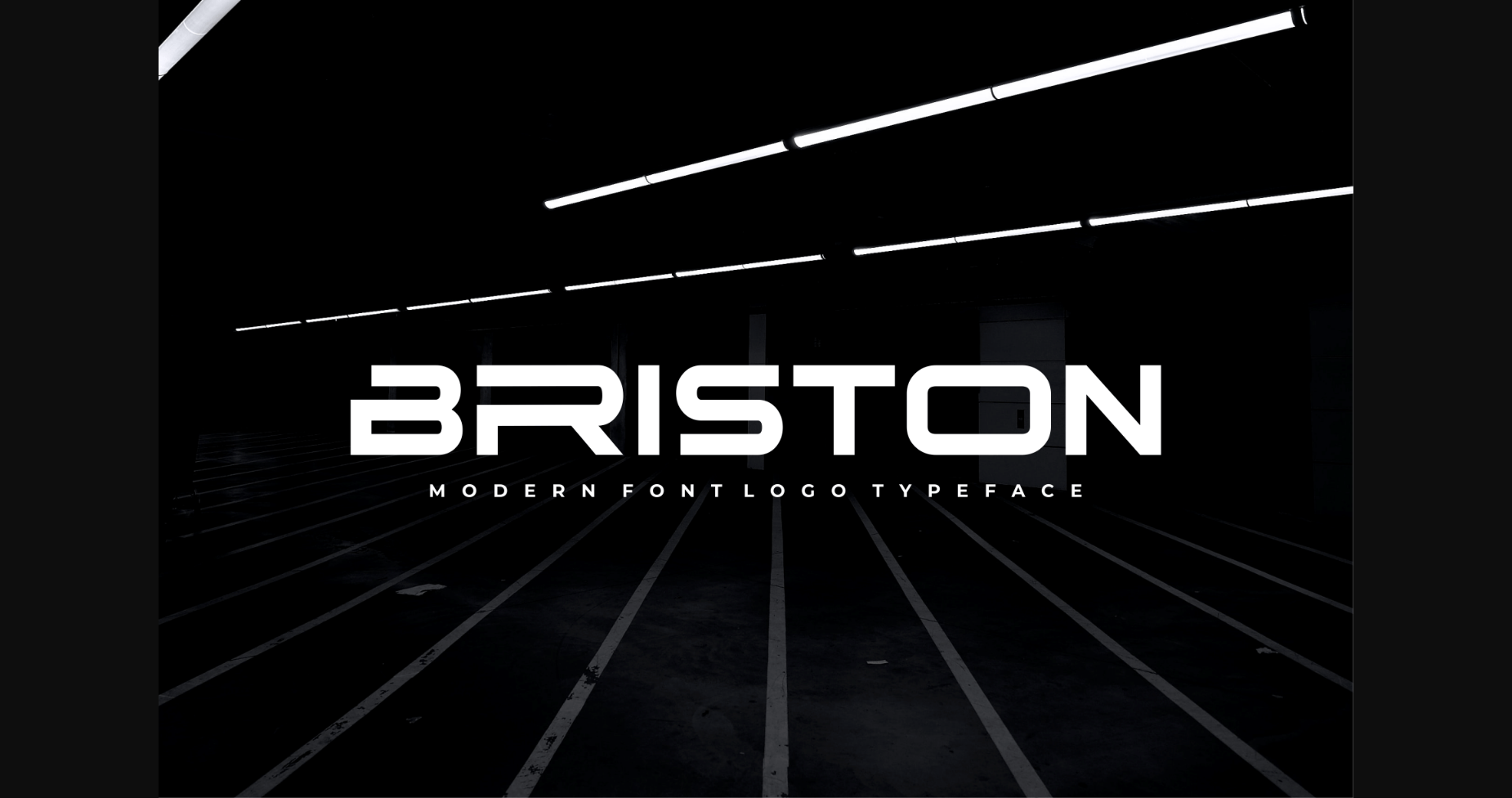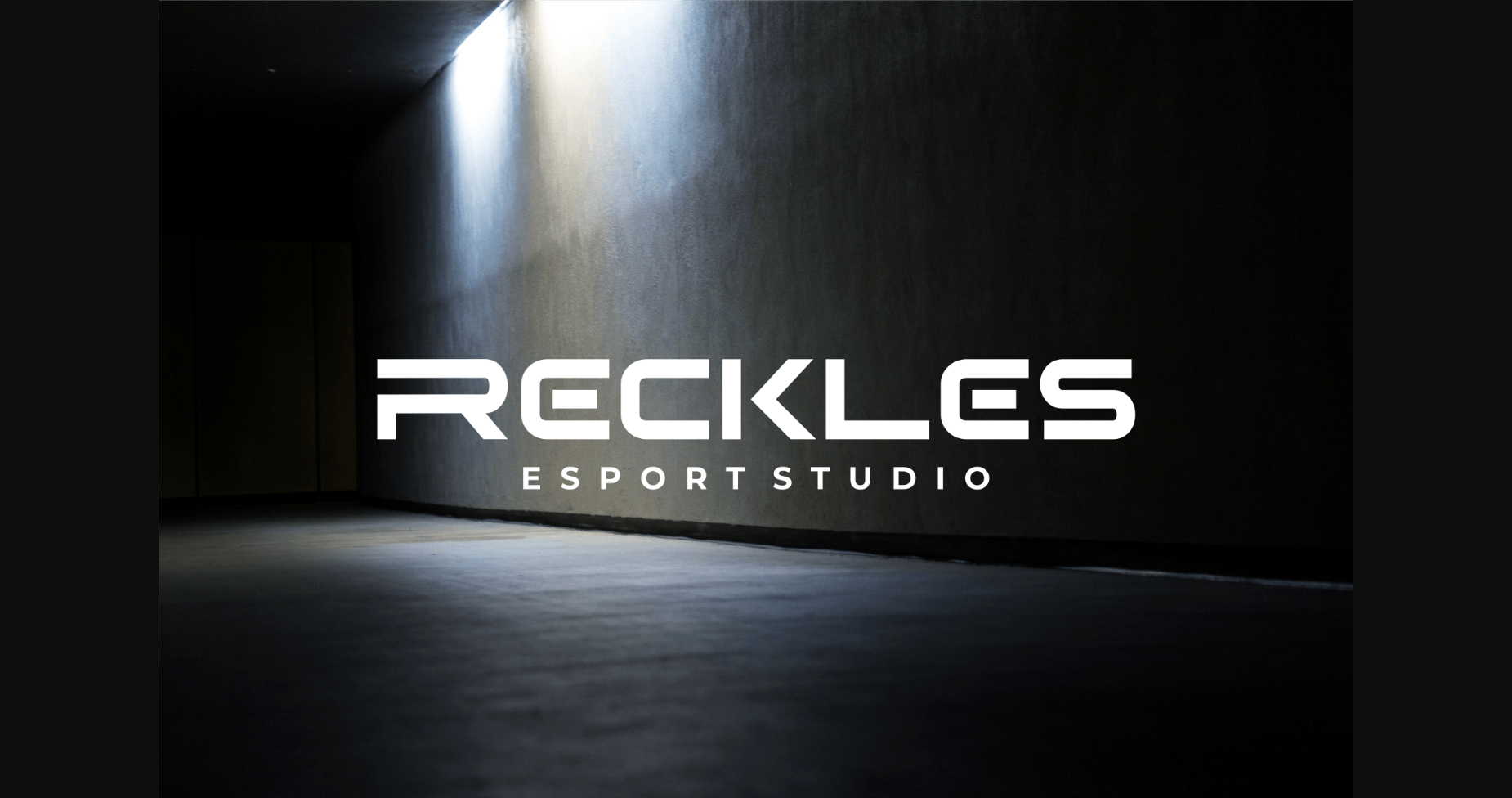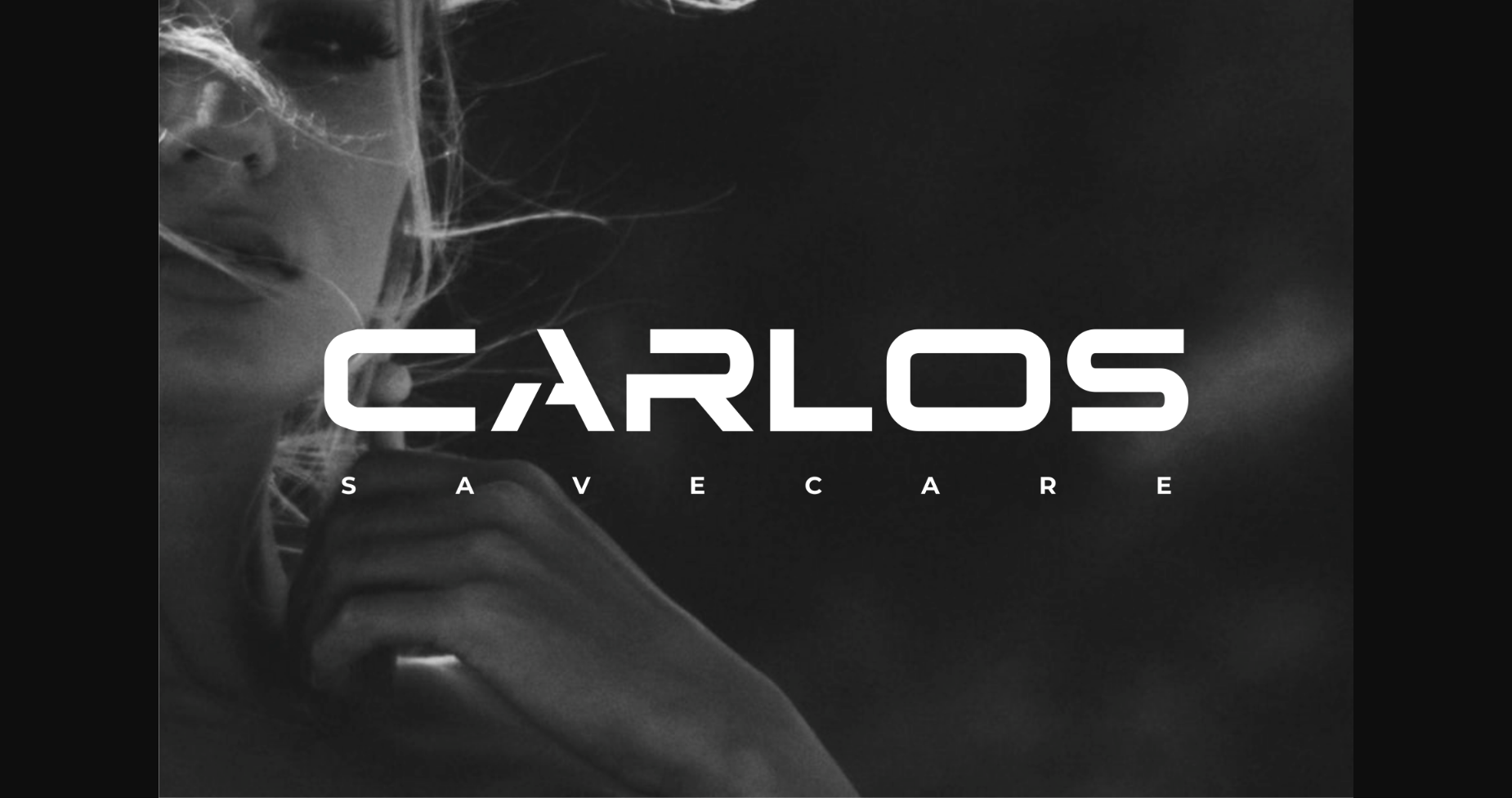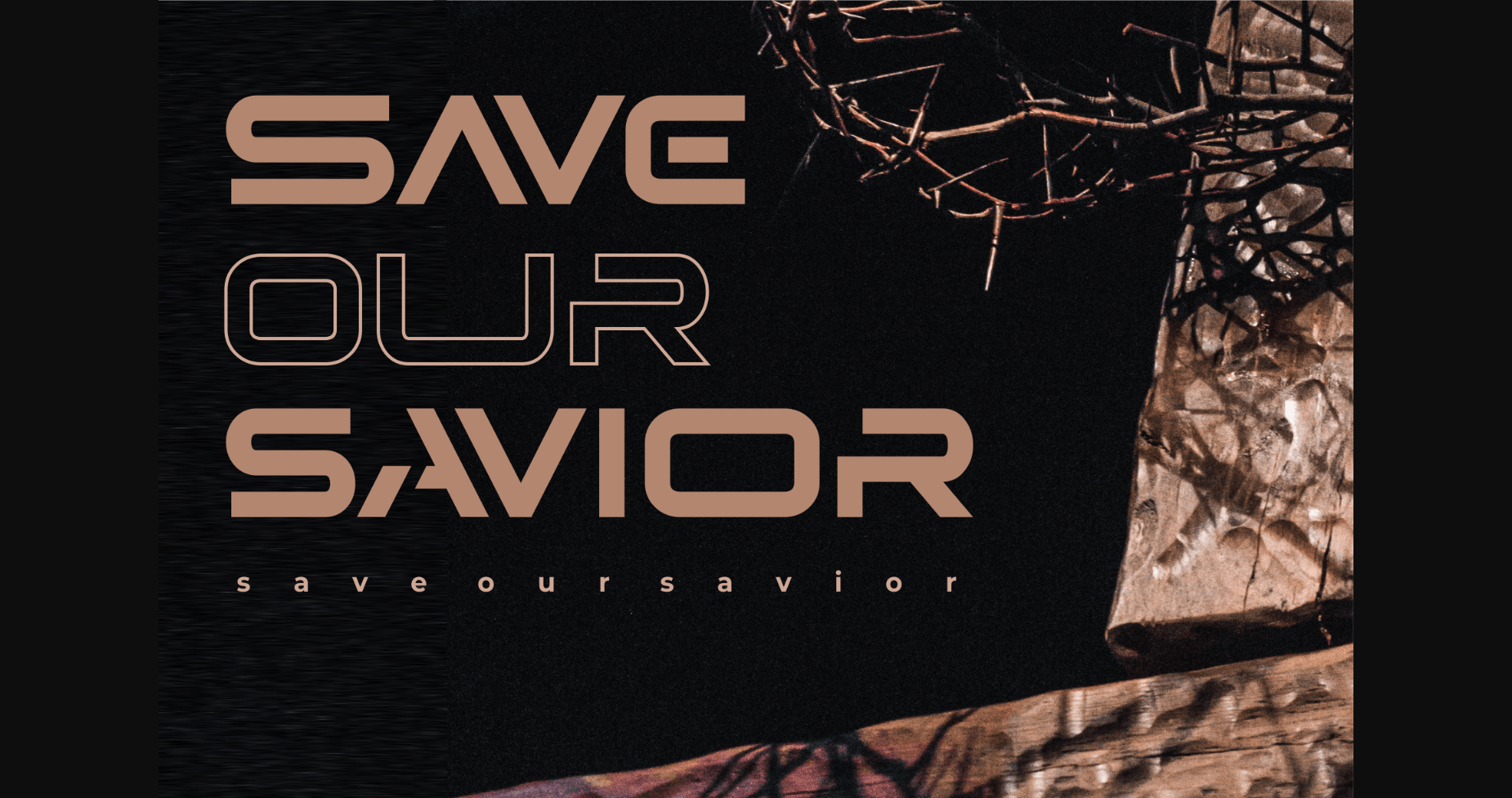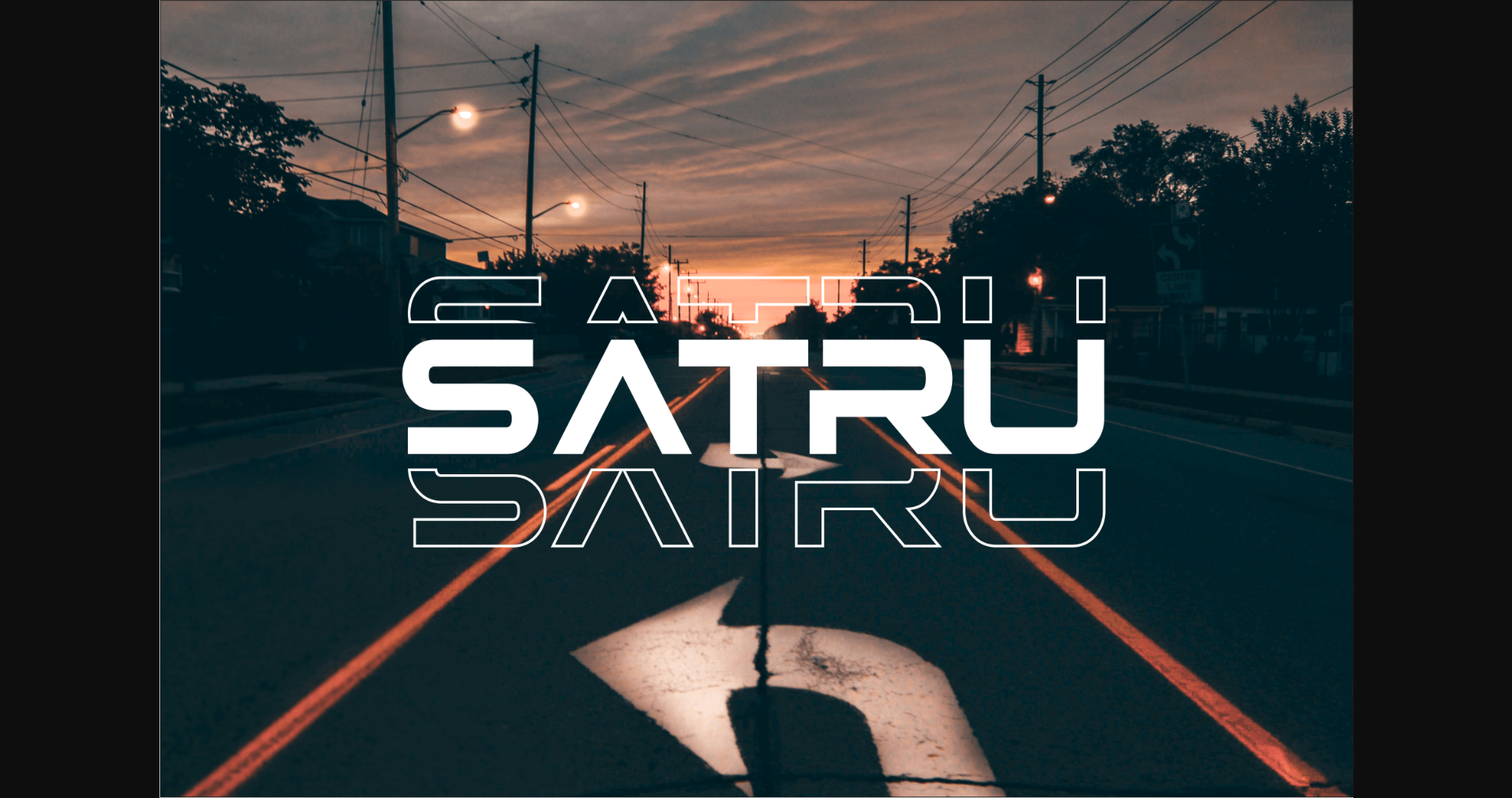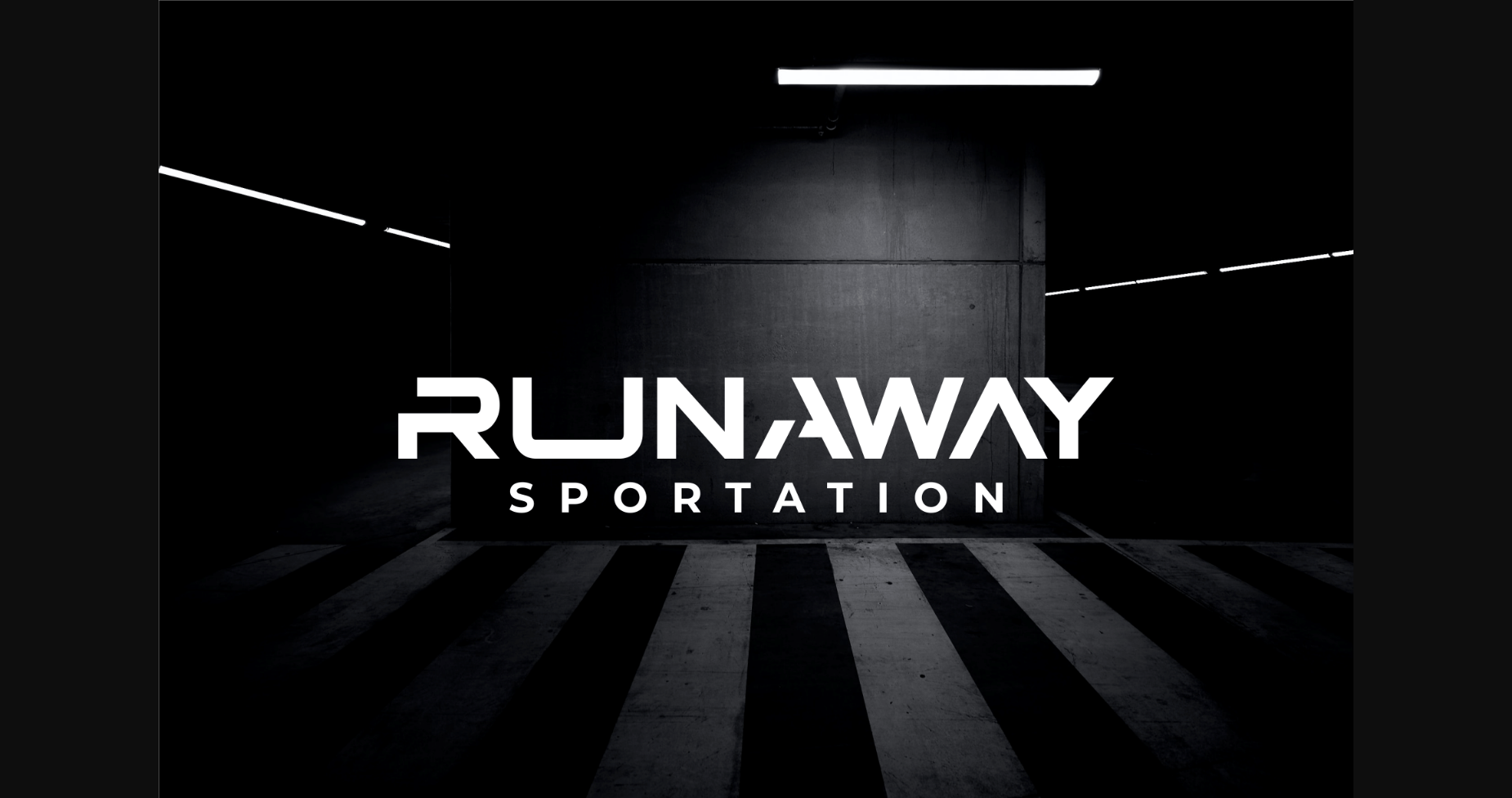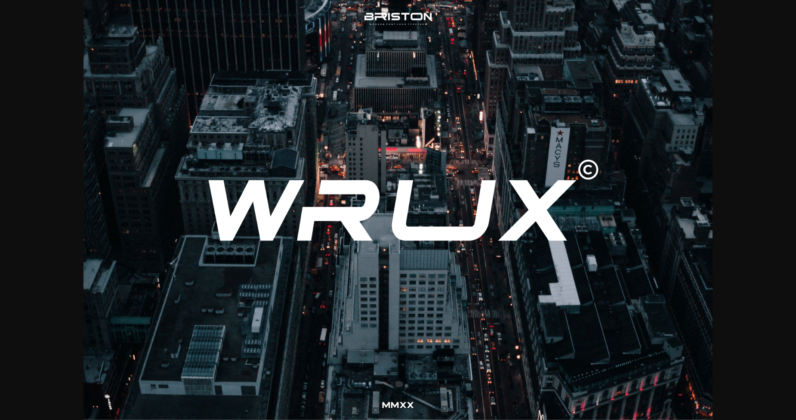
Briston is a strong bold sans serif, with solid lines, paired with bold yet soft rounding. It’s perfect for logotypes, signage, branding, apparel, posters, social media, headlines, titles, large format prints, and more.